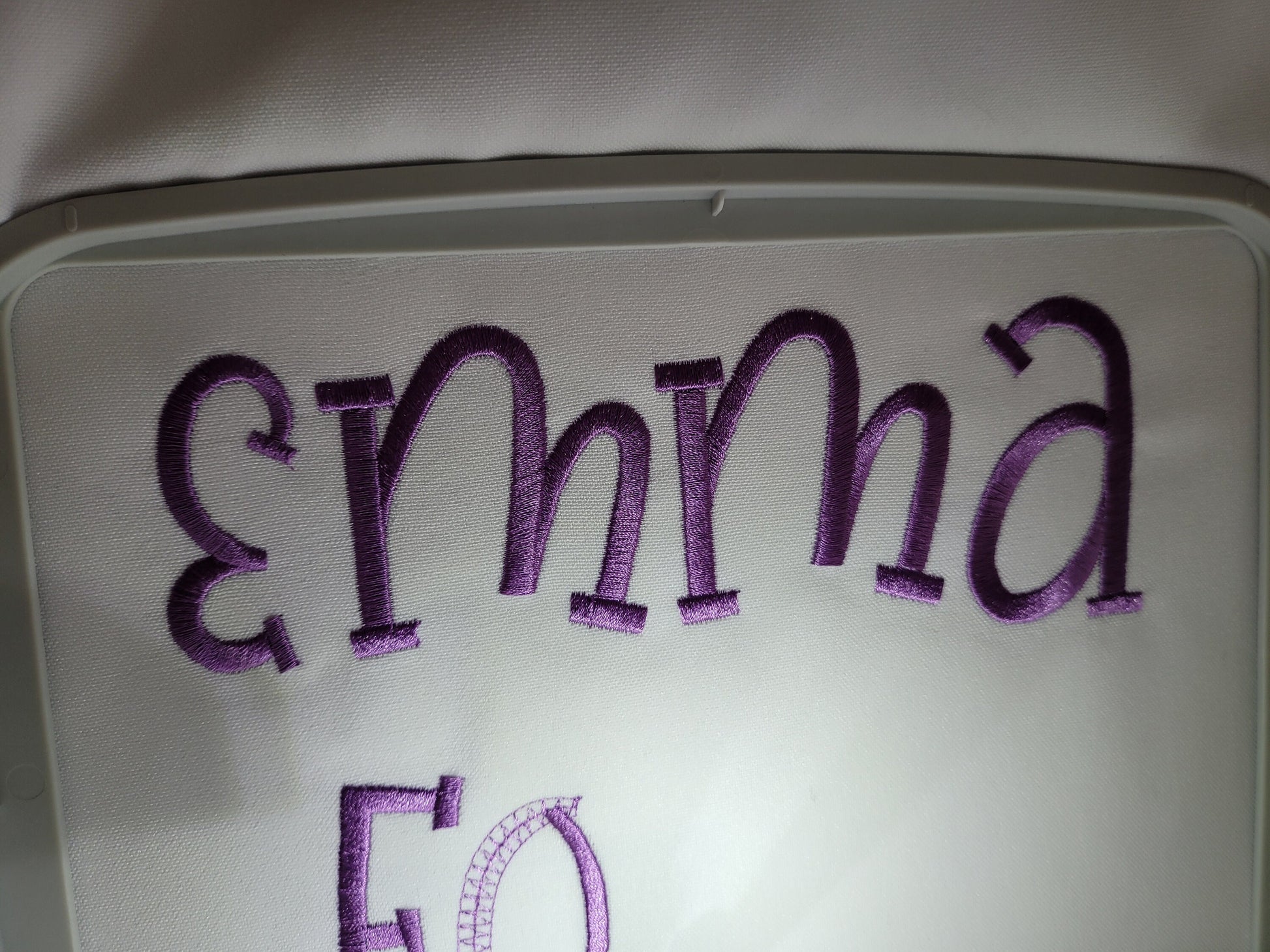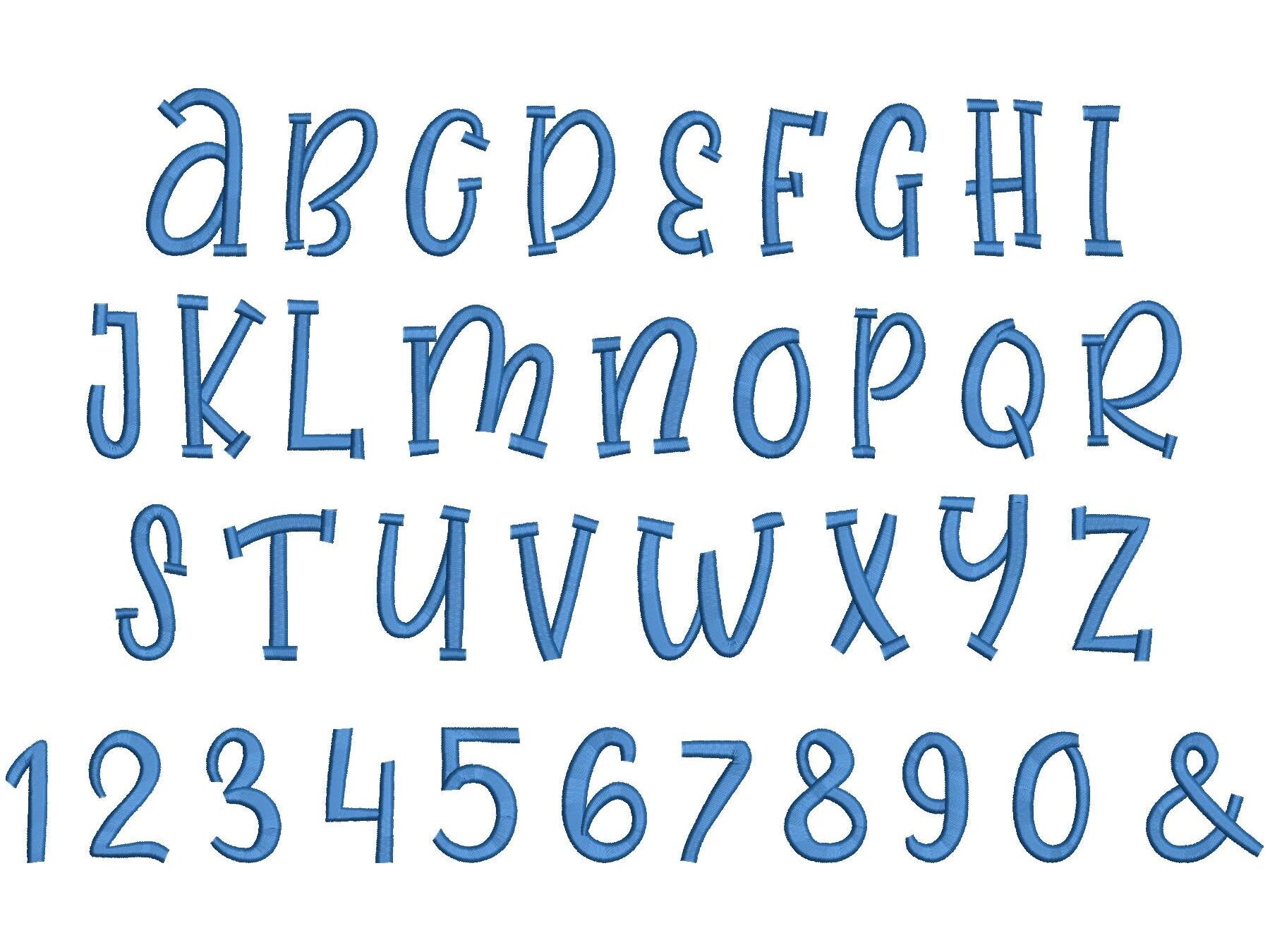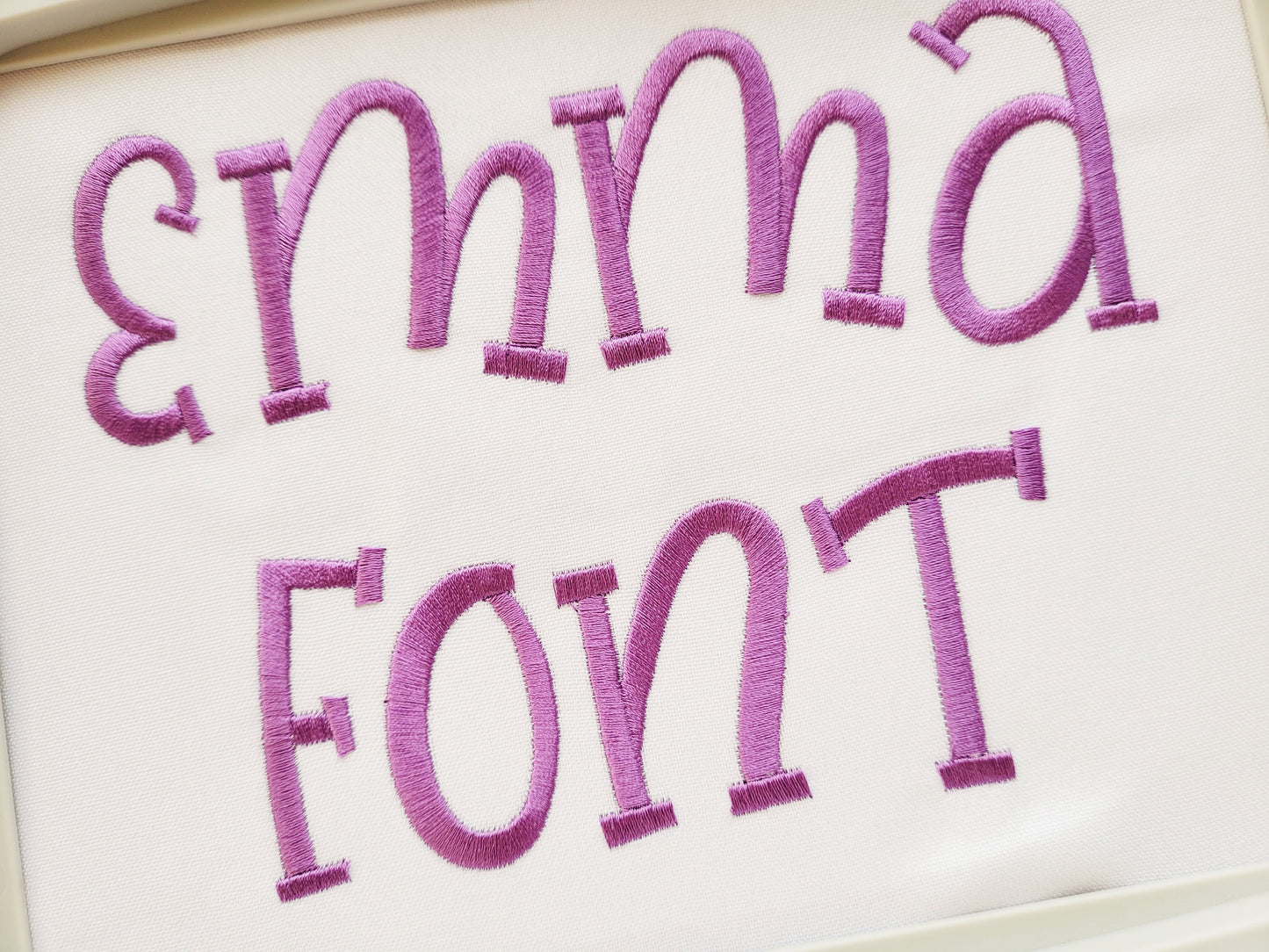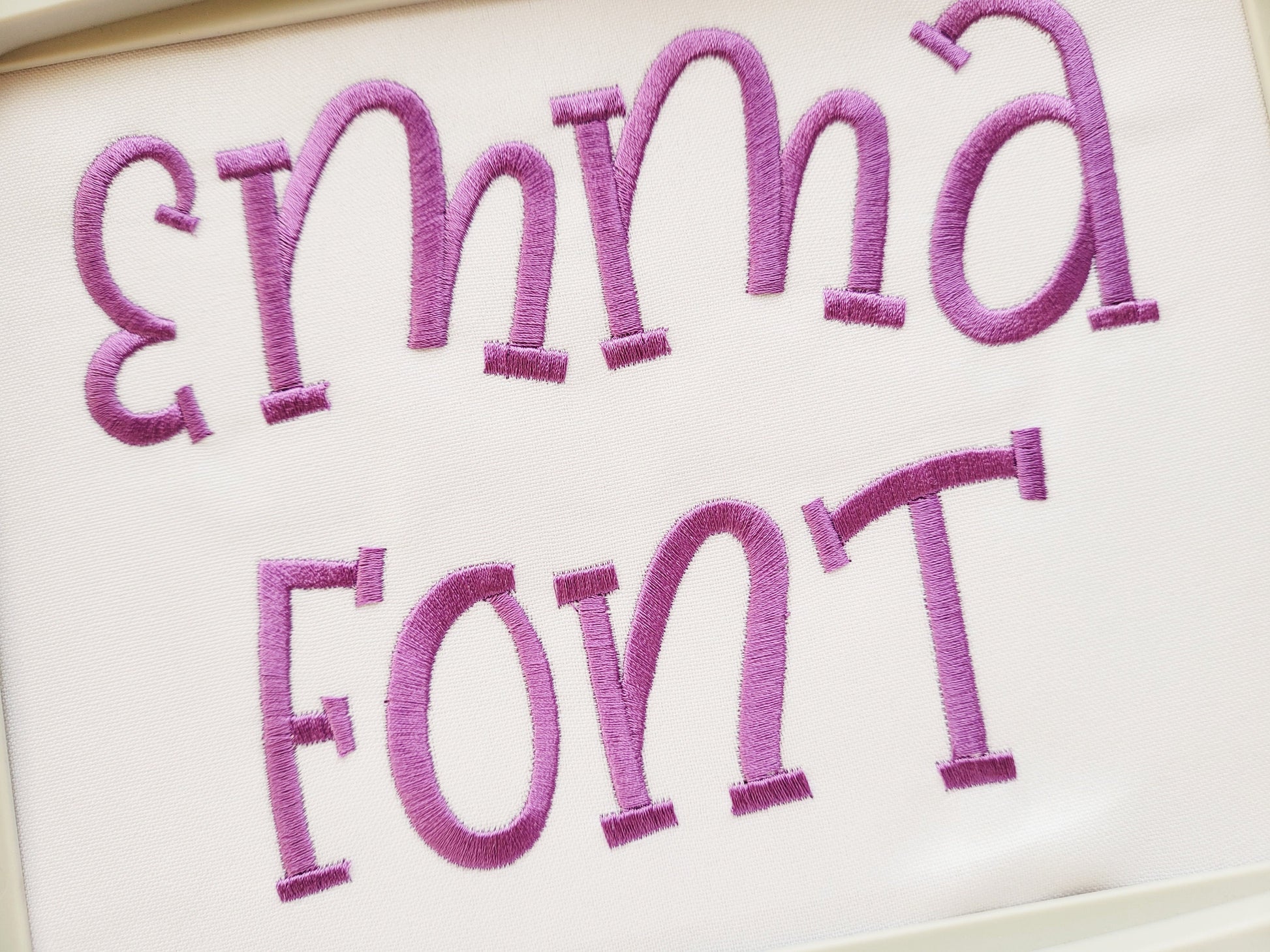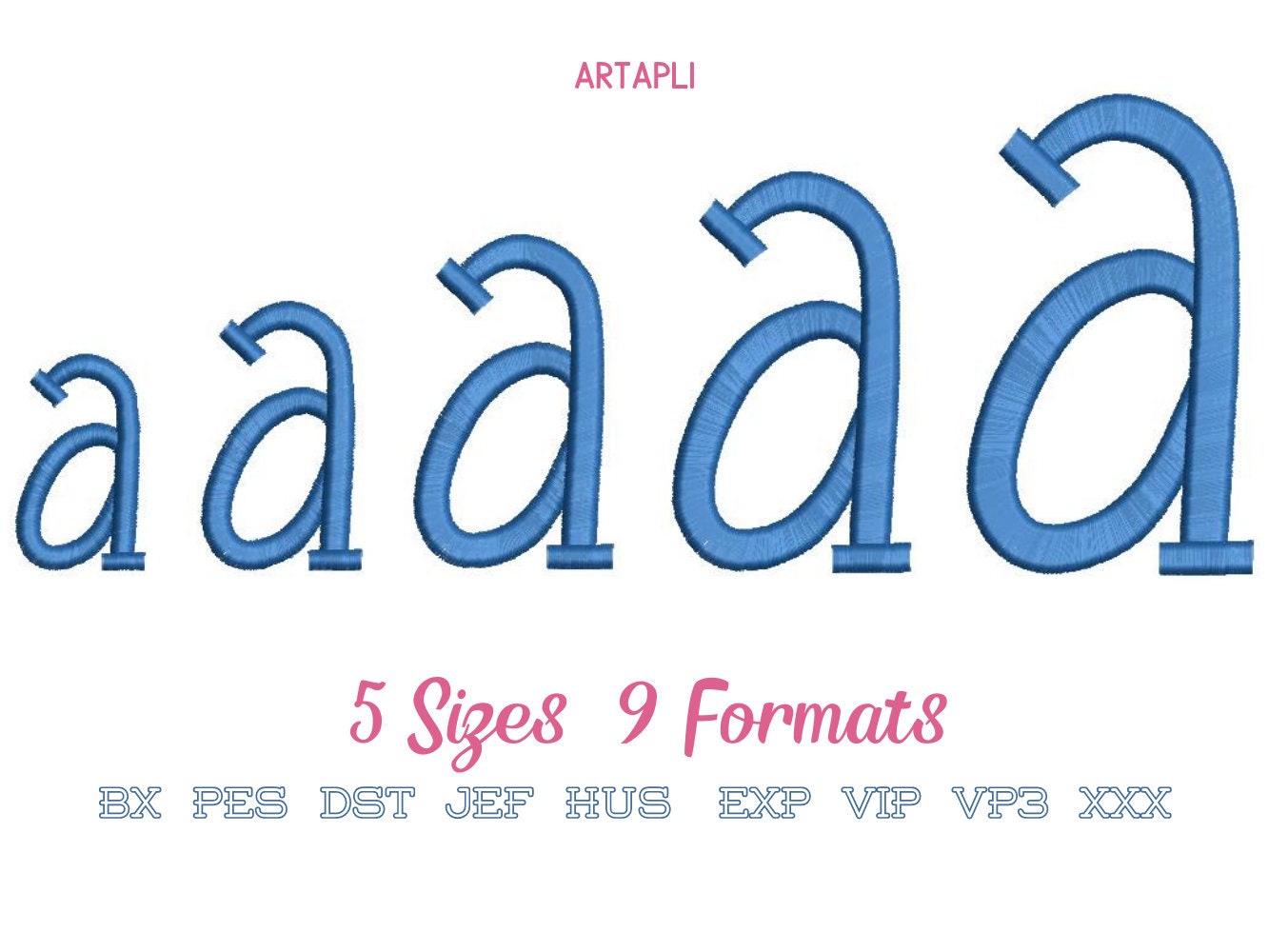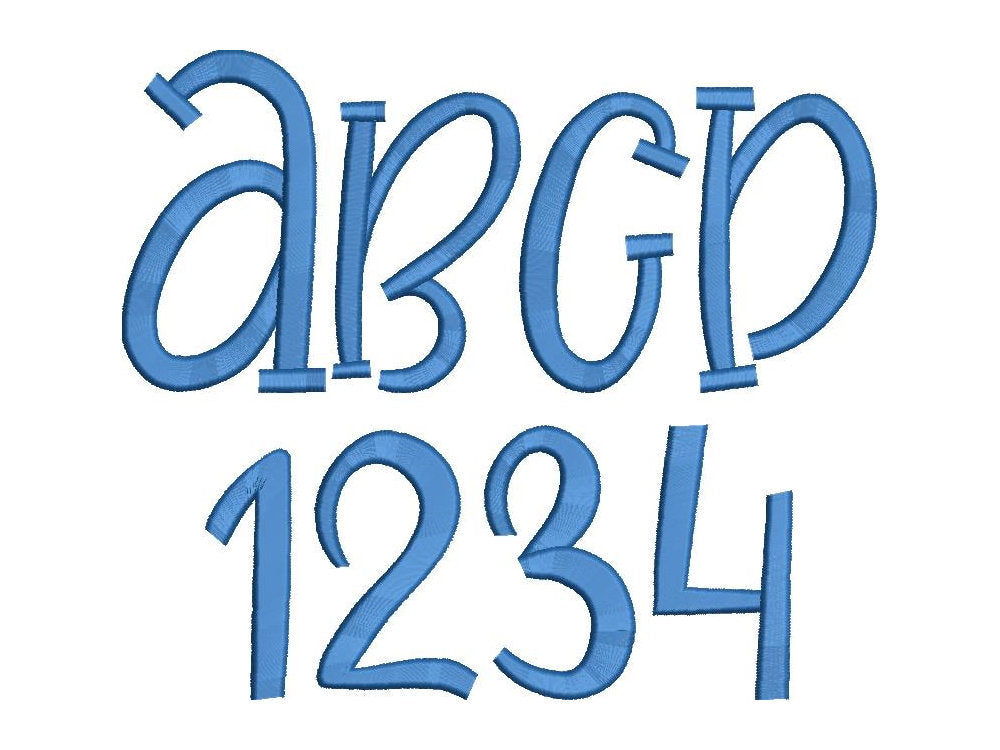
Or click to open the linkA playful satin stitch kids' font for names, initials and numbers on shirts, bags and pillows.
Uppercase A to Z, numbers 0 to 9 and an ampersand in five sizes: 1.4, 1.8, 2.2, 2.6 and 3.1 inches.